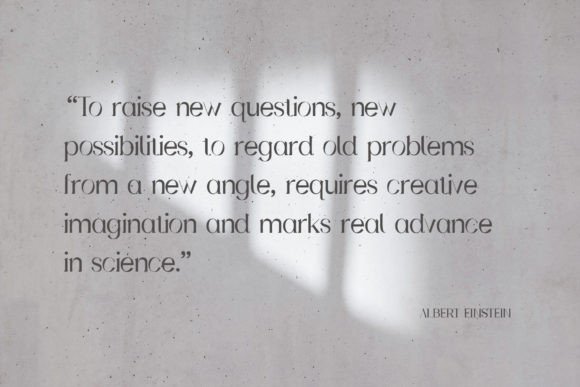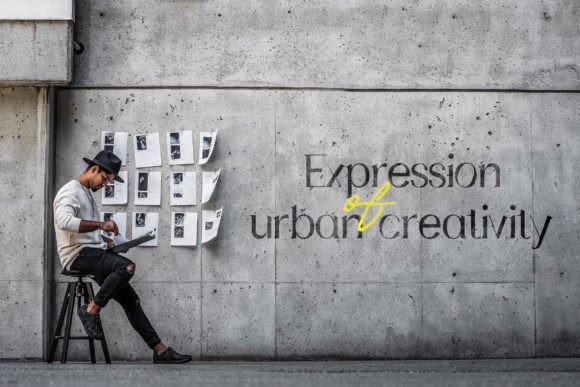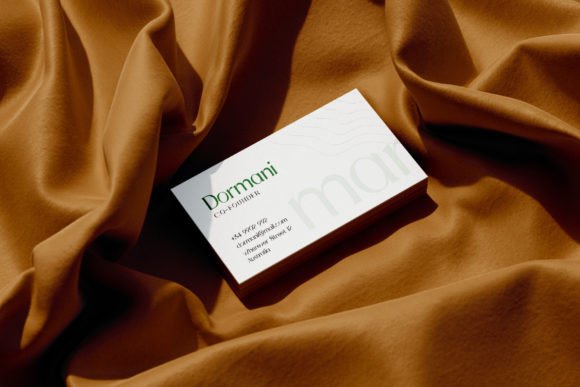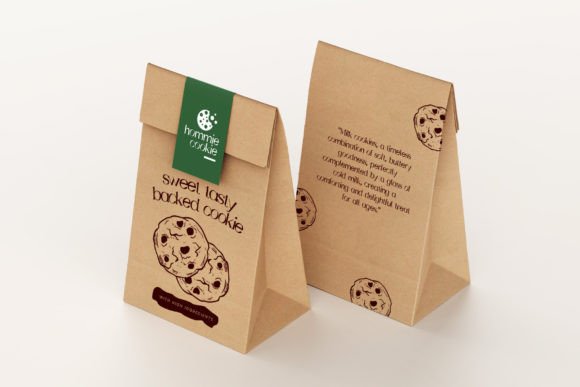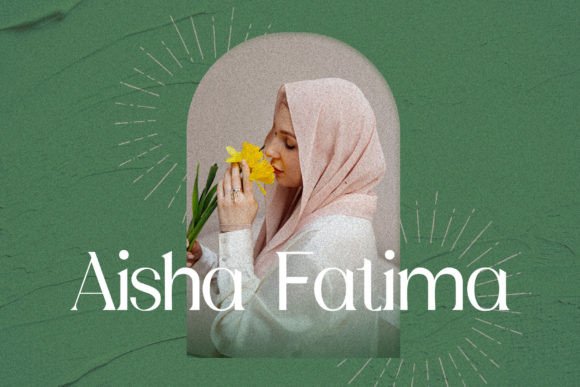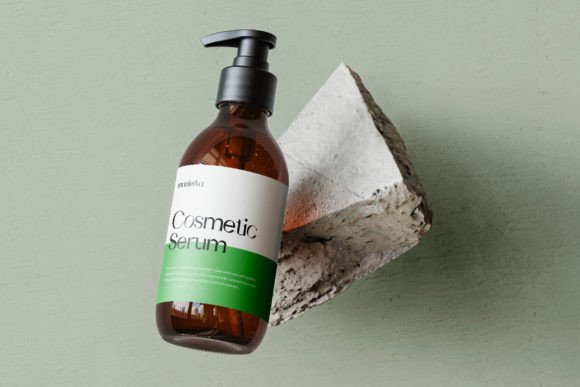
Introduction to Manierka Font
Manierka is a font of unparalleled elegance and fancy sophistication.
Its serif design exudes refinement and artistry, with every stroke carefully crafted to create an aura of timeless beauty The letters are adorned with delicate flourishes and intricate details, reminiscent of a couture fashion piece.
Key Features of Manierka Font